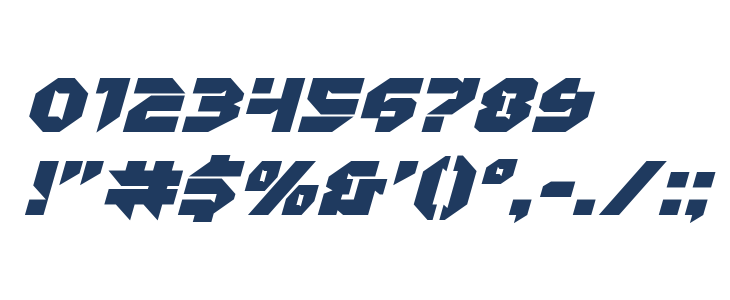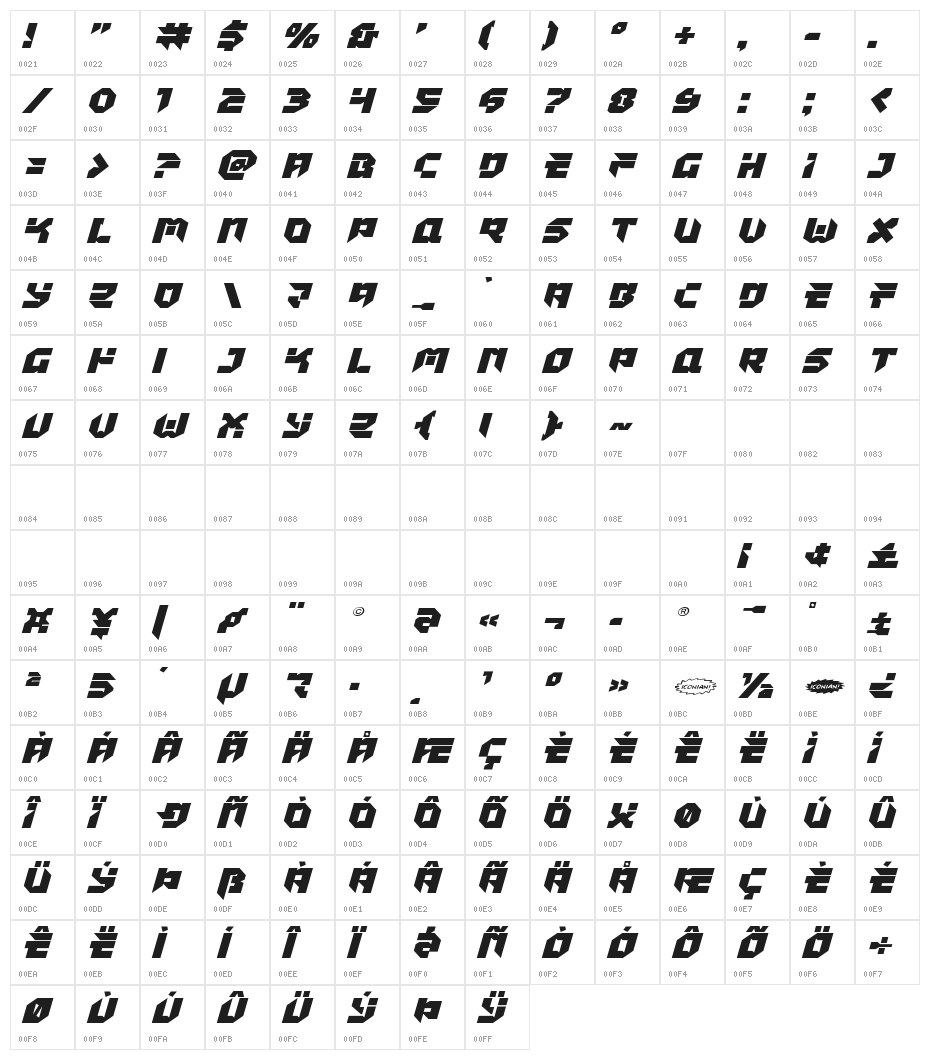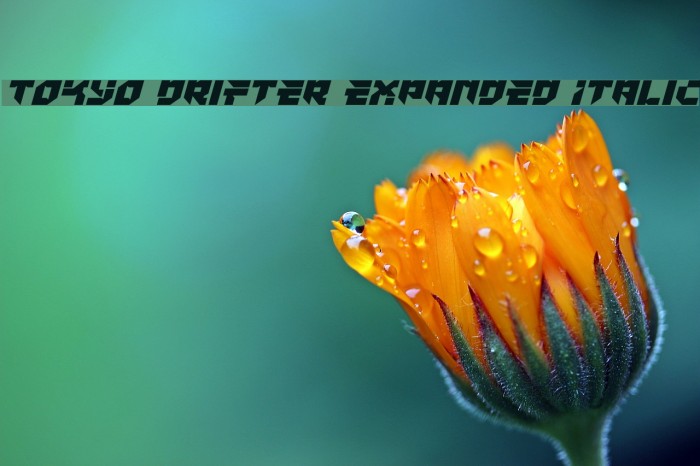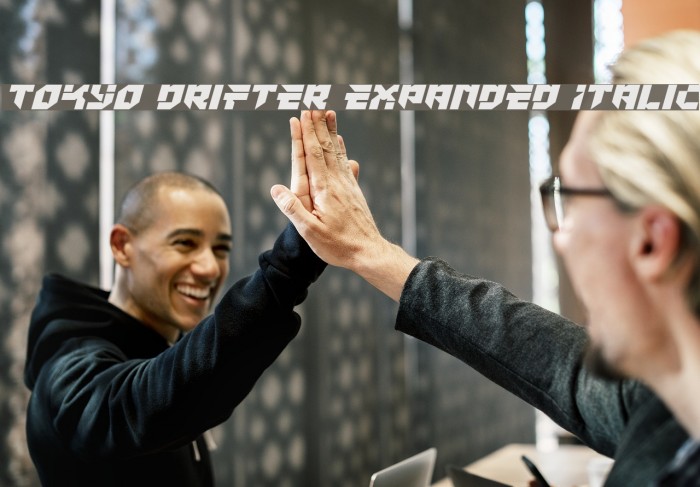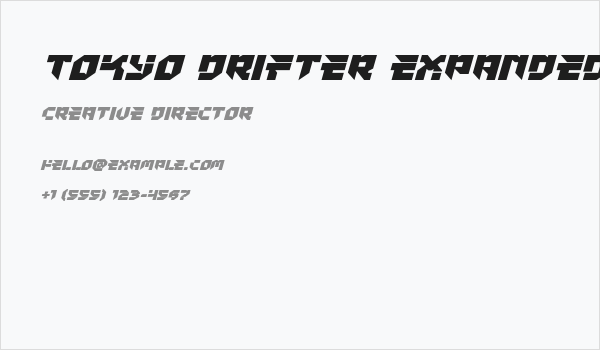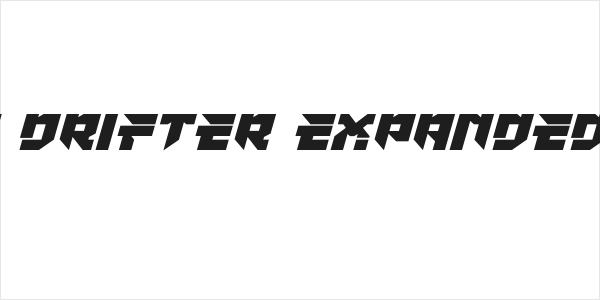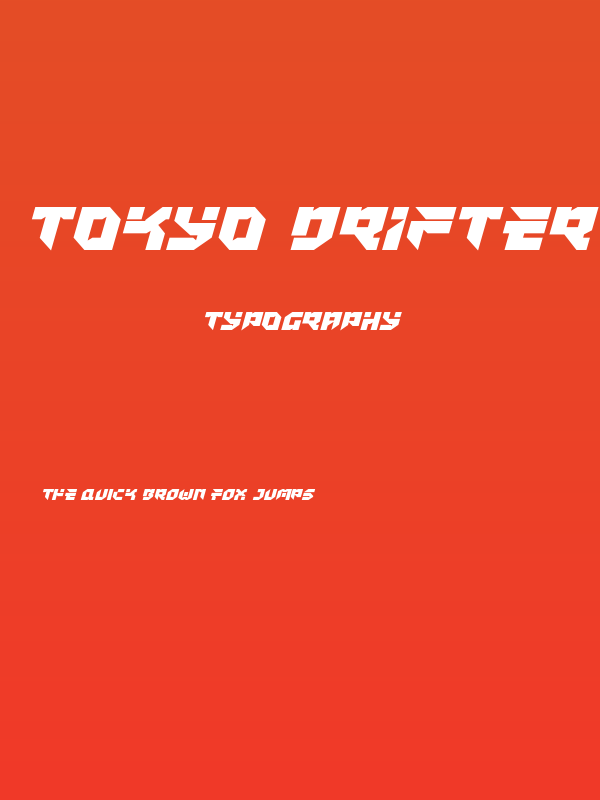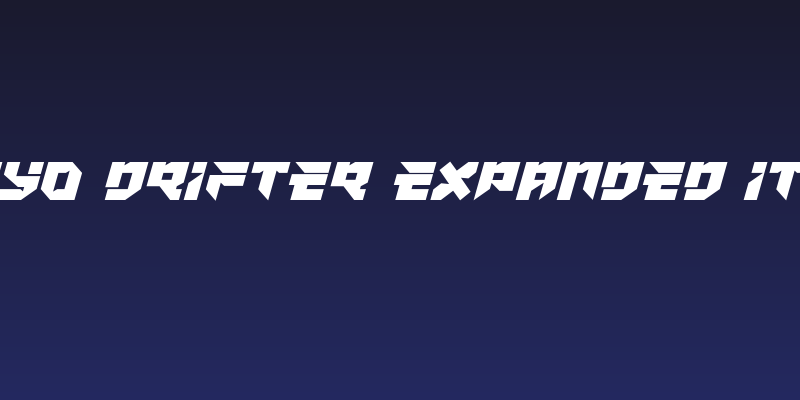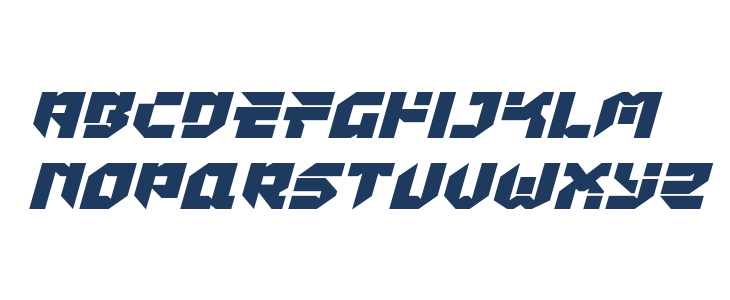
Tokyo Drifter Expanded Italic Font
Tokyo Drifter Expanded Italic Description
This font features a bold and dynamic design with a futuristic and angular aesthetic. The characters are sharply cut with a distinct geometric style, giving them a modern and edgy appearance. The italic slant adds a sense of motion and speed, making it ideal for projects that require a sense of urgency or modernity. The expanded width of the characters provides a strong presence, ensuring visibility and impact. The font's unique style is suitable for creative and innovative designs, capturing attention with its bold and striking look.
| Proposed Projects | Ideal for sci-fi movie posters, video game titles, tech branding, and futuristic event flyers. |